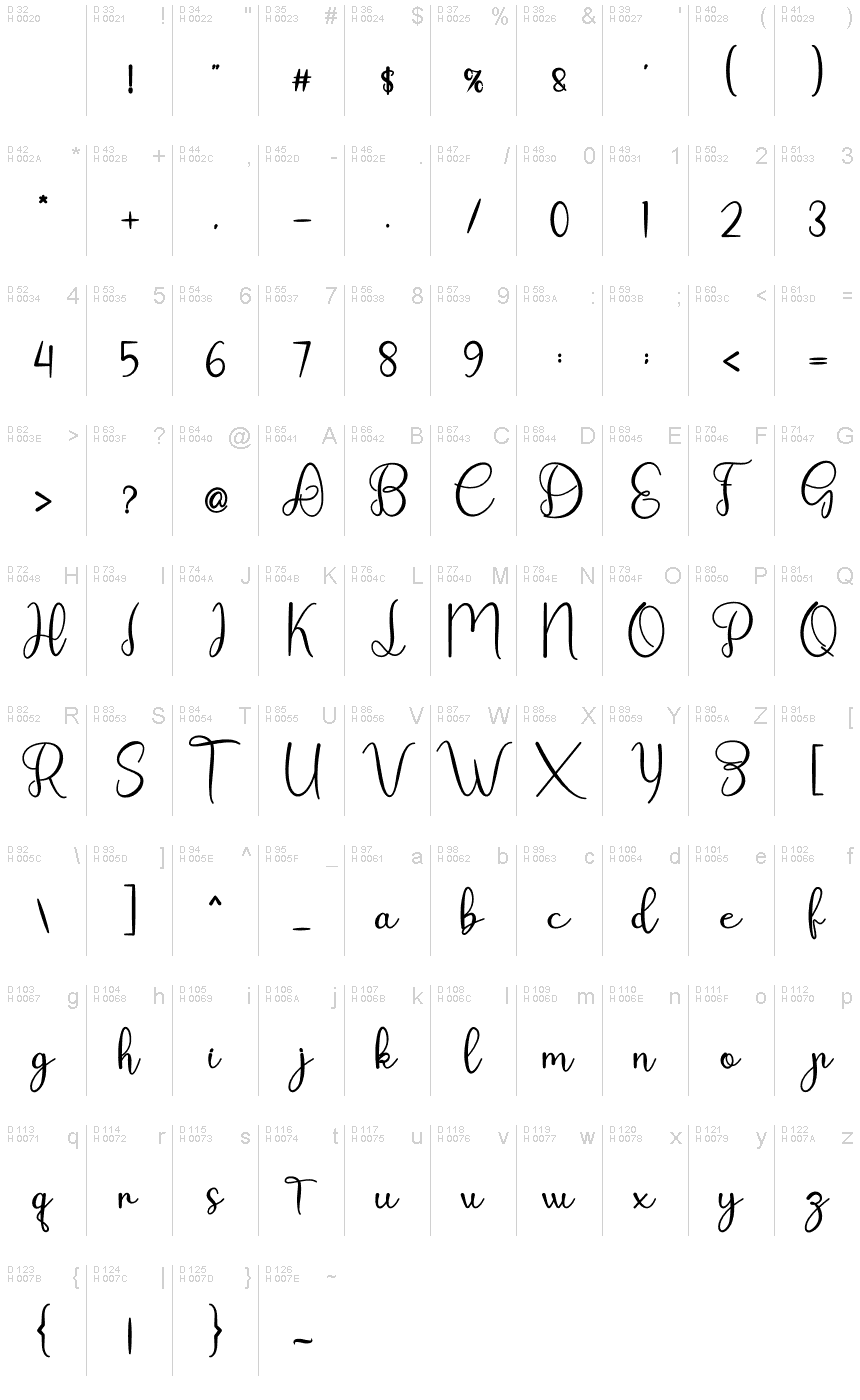
Orelly
Orelly, the semi-light handwritten font designed by Fahmi Hayat, is a versatile addition to any designer's toolkit. Its playful and approachable style makes it perfect for creating greeting cards, invitations, and social media graphics. The semi-light weight ensures legibility while maintaining a delicate feel. Use Orelly for branding projects that require a personal touch, such as wedding stationery or boutique logos. Its unique character also makes it ideal for packaging designs that need to stand out on a crowded shelf. Let Orelly add warmth and personality to your next project!